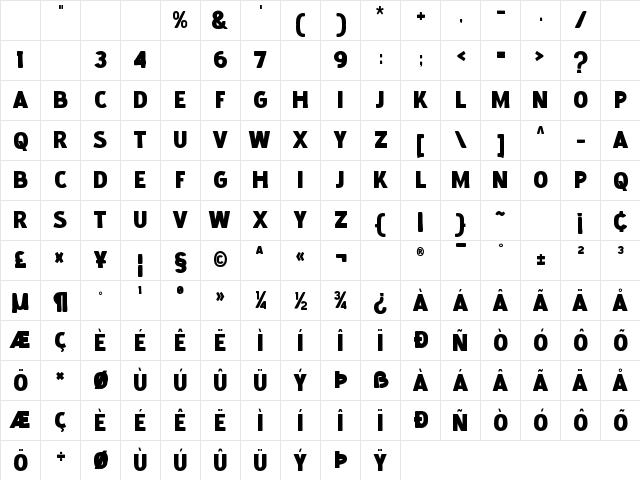
Baby Stingrays Regular Free Font
Baby Stingrays Regular
Foundry: Gassstype￿ Studio
Designer: Anang F & Malik Wsn | Gassstype￿ Studio 2021
Design Context for Baby Stingrays
Baby Stingrays is a composed and adaptable typeface that performs quietly and consistently across a wide range of design contexts.